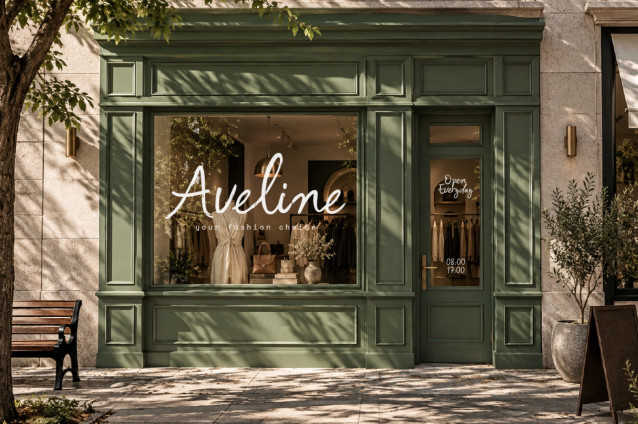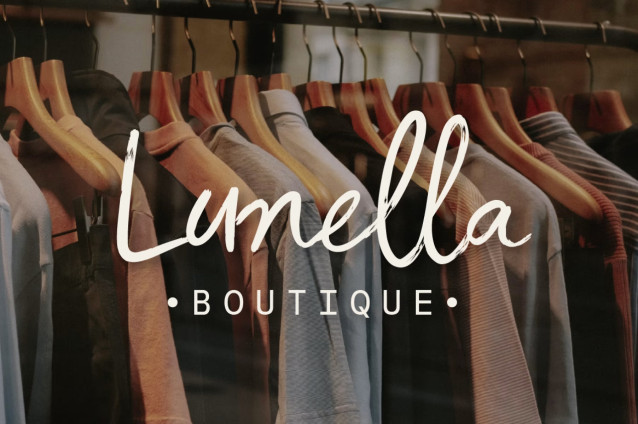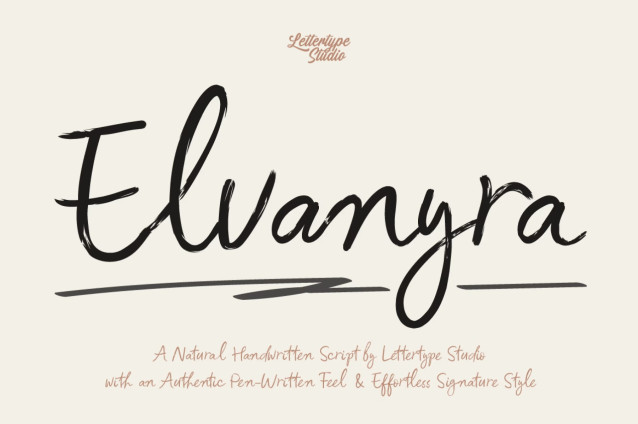
Elvanyra is a natural handwritten script inspired by the spontaneous beauty of everyday handwriting. Its flowing strokes, subtle irregularities, and expressive letterforms create an authentic written impression while maintaining enough clarity for practical display use.
Designed to feel personal rather than overly polished, Elvanyra balances elegance with a relaxed handwritten character. The script works beautifully for names, short phrases, signatures, headlines, quotes, and branding where a human touch is essential.
From boutique identities and fashion-inspired graphics to packaging, stationery, invitations, editorial compositions, and social content, Elvanyra brings a warm and genuine personality to every composition. Its organic pen-written appearance makes it especially effective when you want typography to feel intimate, stylish, and naturally expressive.